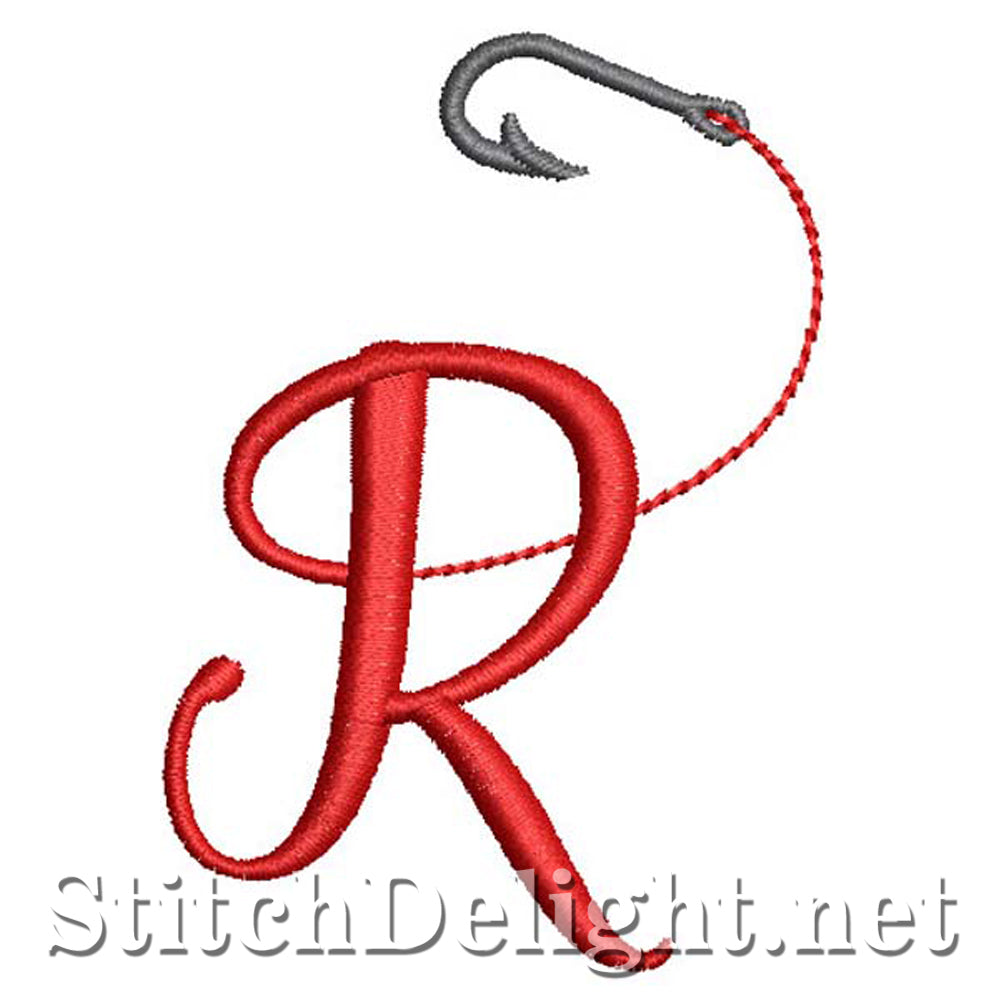
SDS1272 Fishline Font R
Get hooked with this stunning fishing font perfect for branding your fishing shirts, jackets, hats and gear. This font has an average height of 3"